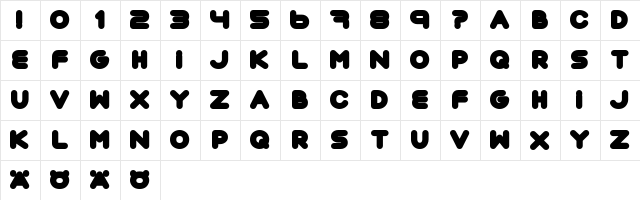
Pouttu Regular Font Preview
Pouttu Regular
Design Context for Pouttu Typeface
Pouttu is a composed and adaptable typeface that performs quietly and consistently across a wide range of design contexts.